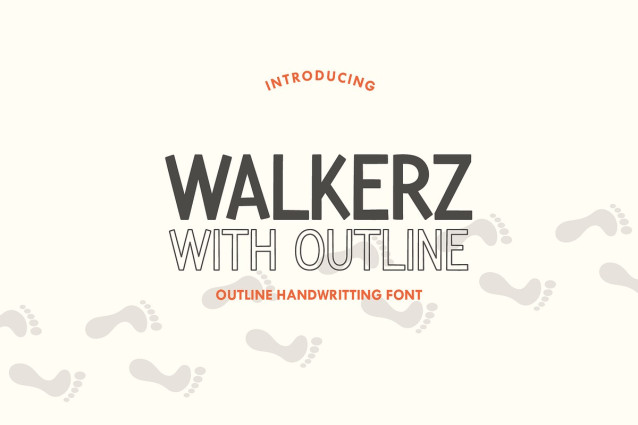
Walkerz Font
WALKERZ Font, the handcrafted sans serif font that’s about to revolutionize your design game!What’s Included in This Epic Font Package?Uppercase and lowercase letters Numbers Basic punctuation marks Outline version Hurry! Get WALKERZ Today and Start Creating Designs That Will Change the Game